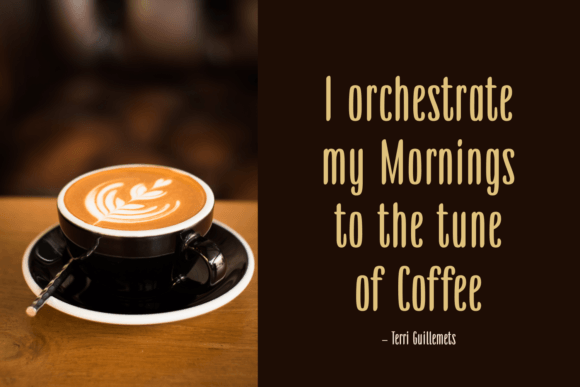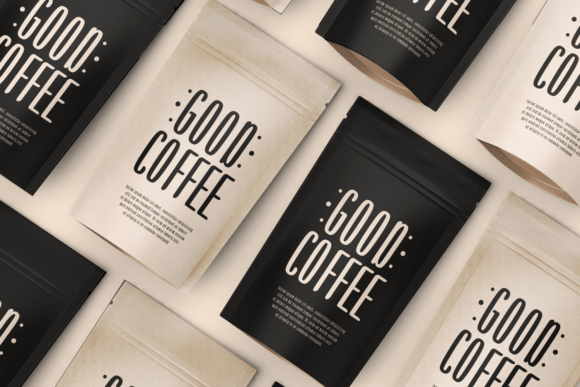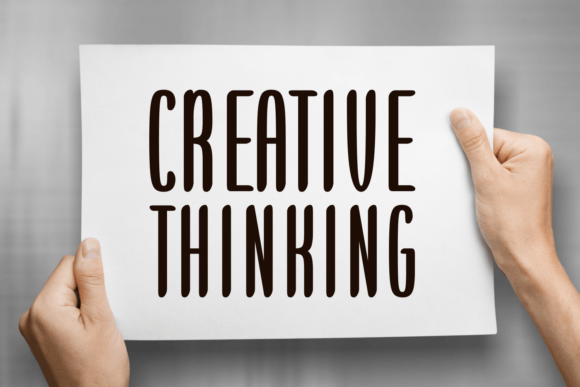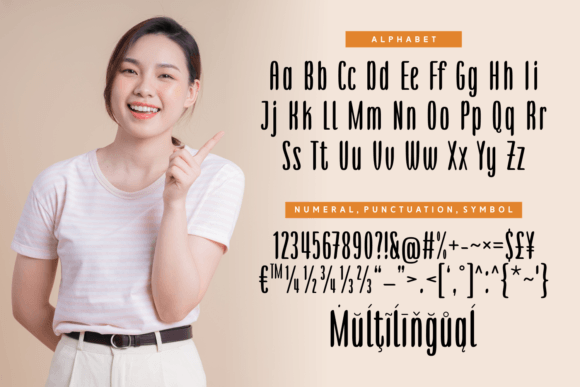
Introduction to Evening Coffee Font
Evening Coffee is a neat and fresh handwritten font.
Key Features of Evening Coffee Font
Why Choose Evening Coffee Font?
Evening Coffee Font offers exceptional quality and versatility, making it a valuable addition to your design toolkit. Whether you’re creating for personal projects or commercial use, Evening Coffee Font delivers professional results.